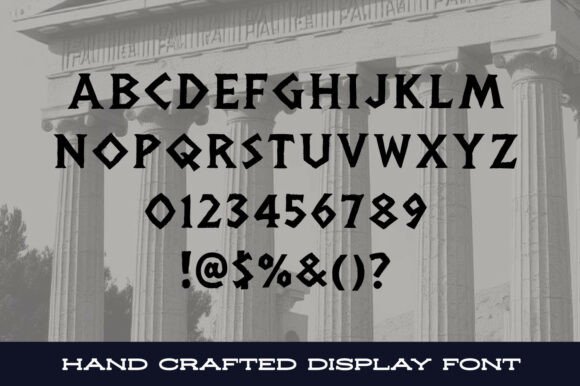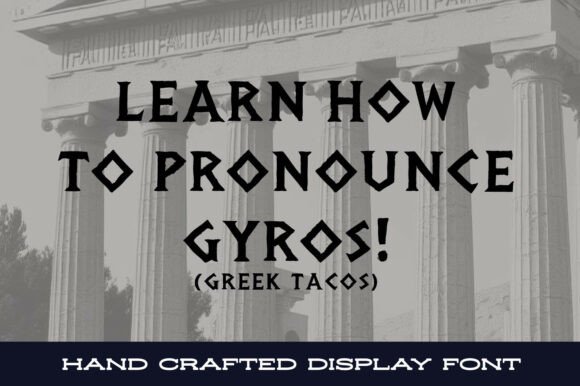
Introduction to Mythikos Font
Mythikos is a bold, hand-crafted typeface inspired by the strength and elegance of ancient Greek inscriptions.
Featuring sharp, angular letterforms with distressed edges, this font captures the timeless energy of crumbling temples, heroic legends, and seaside tavern signs Perfect for menus, logos, posters, or anything that needs a touch of myth and grit, Mythikos balances classical influence with a rugged, modern twist.